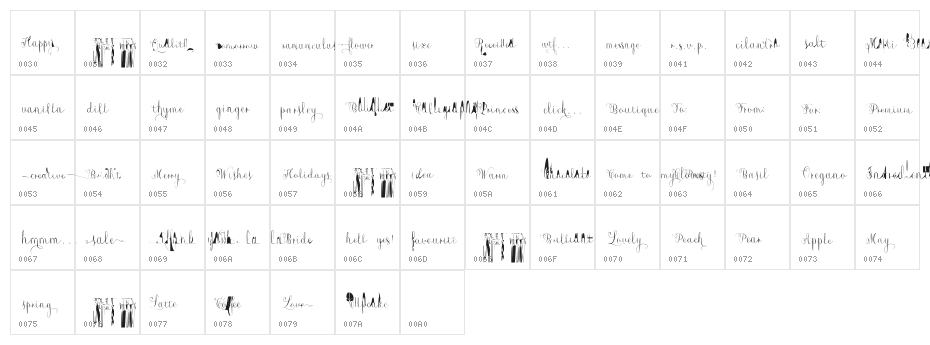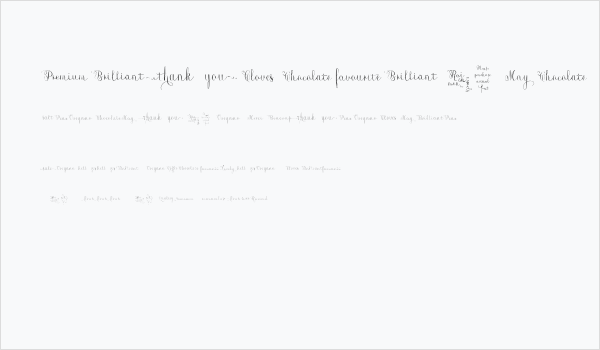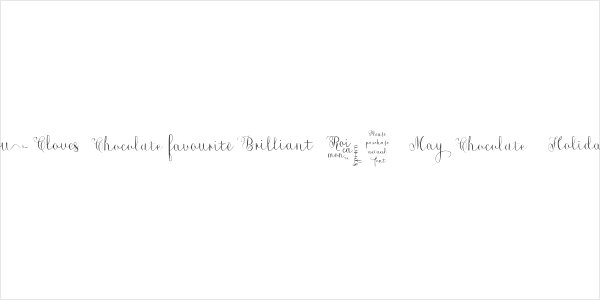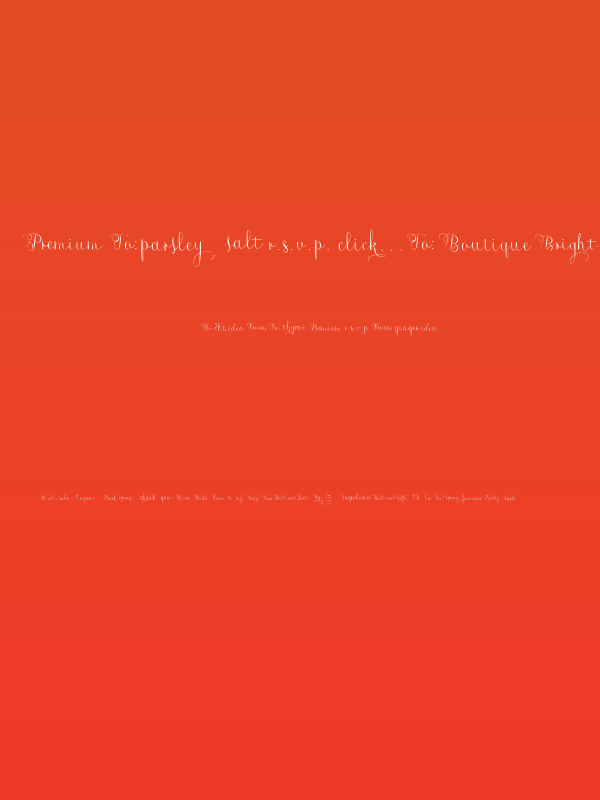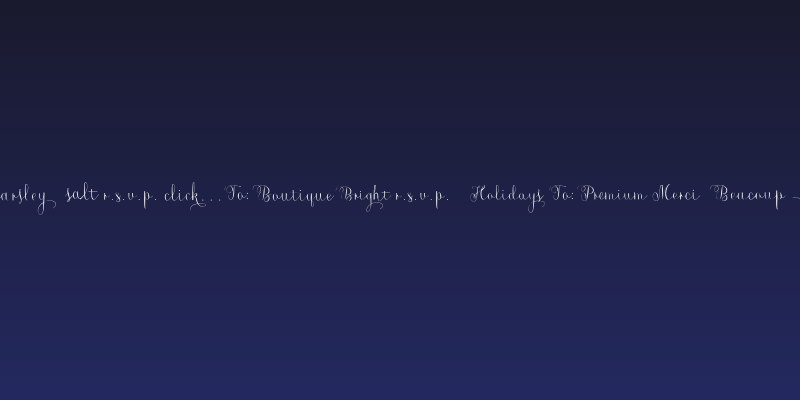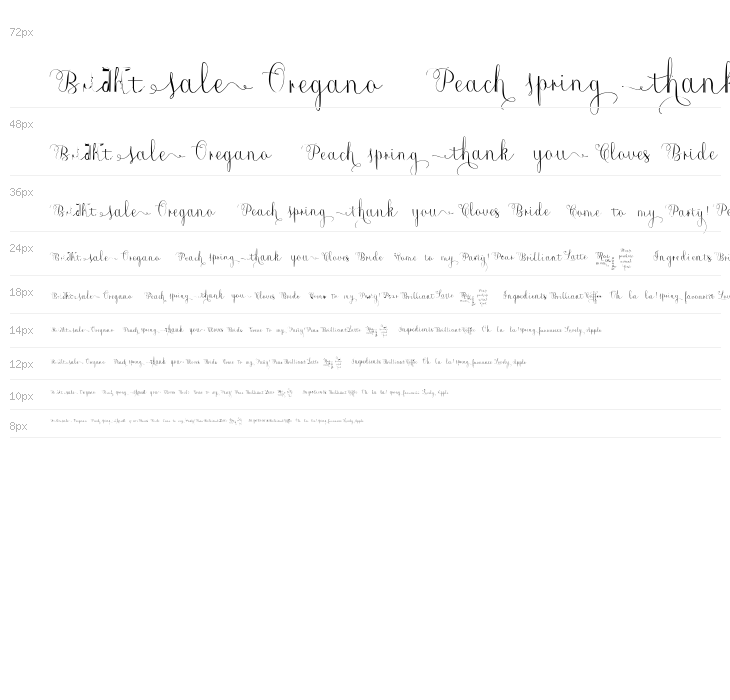
Roicamonta Words Font
Roicamonta Words Description
This elegant script font exudes a sense of sophistication and grace, characterized by its flowing, cursive letterforms. The strokes are delicate and fluid, with a consistent thinness that adds to its refined appearance. Each character is intricately designed, with ornate swashes and loops that give it a decorative flair. The font maintains a harmonious balance between readability and artistic expression, making it suitable for formal and celebratory contexts. Its overall aesthetic is reminiscent of traditional calligraphy, yet it retains a modern touch that enhances its versatility.
| Proposed Projects | Ideal for wedding invitations, greeting cards, elegant branding, and high-end product packaging. |